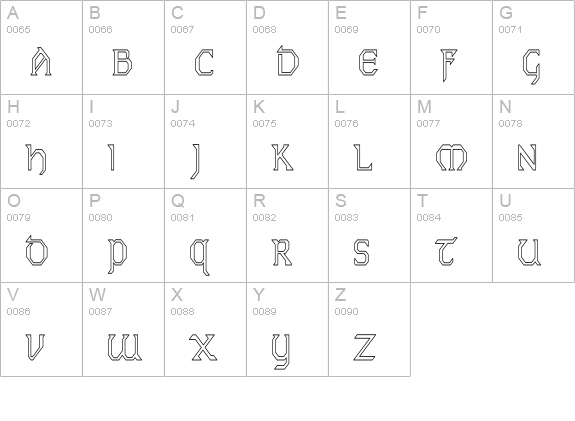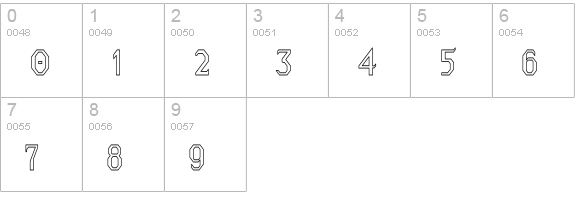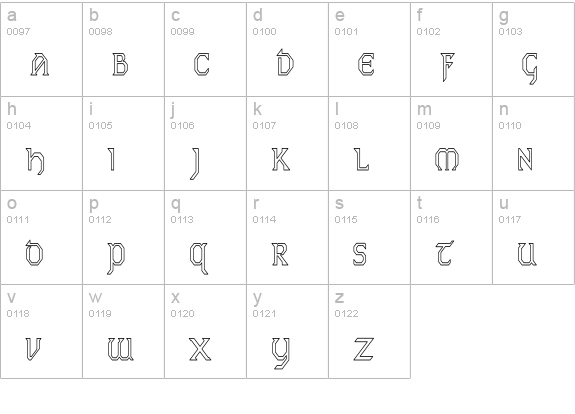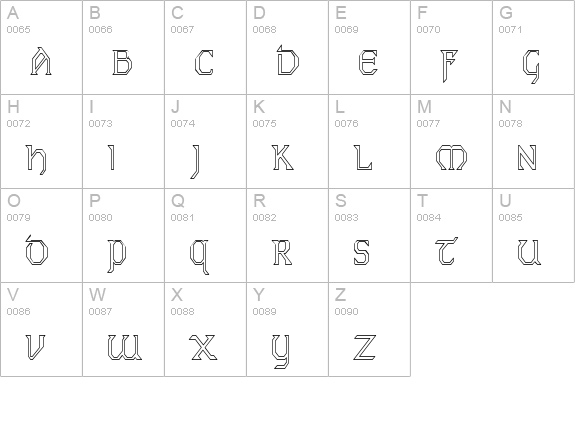
PCEireHC Font Details
PCEireHC font is an exquisite and versatile typeface that exudes elegance and sophistication. Its beautifully crafted letterforms are perfect for adding a touch of class to any design project. Whether you're creating a logo, designing a website, or working on a branding campaign, PCEireHC font will elevate your work to new heights. This font features a unique combination of clean lines and subtle curves, resulting in a balanced and visually appealing look. The attention to detail in every character is evident, making PCEireHC font a true work of art. One of the best aspects of PCEireHC font is that it is available for free. You can easily download this font at FontsMarket.com, a reliable and trusted source for high-quality fonts. With just a few clicks, you can get your hands on this remarkable typeface and start incorporating its beauty into your projects. The versatility of PCEireHC font is remarkable, as it can be used for a wide range of applications. From elegant invitations and wedding stationery to sophisticated advertisements and magazine layouts, this font will make your designs stand out from the crowd. With its smooth and legible letterforms, PCEireHC font ensures effortless readability across various mediums. Whether it's in print or on screen, this font will captivate your audience and leave a lasting impression. Don't miss out on the opportunity to enhance your design projects with the grace and style of PCEireHC font. Download it for free today at FontsMarket.com and unlock a world of possibilities for your creative endeavors.